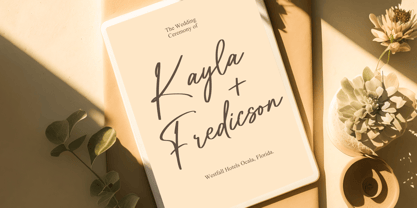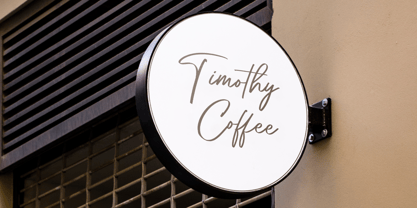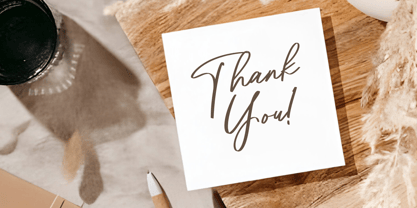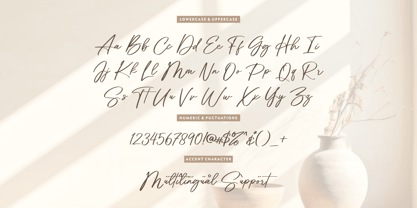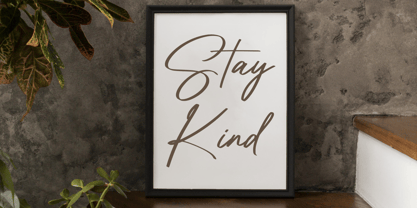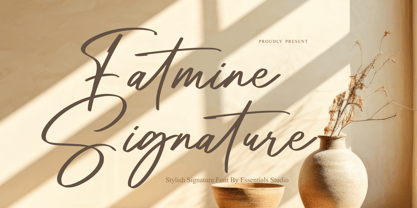
Fatmine Signature
by Essentials Studio
The Fatmine Signature Font Family was designed by Sulthan Mada Maulana Tsani and published by Essentials Studio. Fatmine Signature contains 1 styles. More about this family
Introducing the Fatmine Signature Font, a creation of Essentials Studio. This font, with its elegant signature style, is ideally suited for wedding themes and crafting ventures. Its charming aesthetic and smooth flourishes make it an exquisite addition to your typography library. It’s more than a font; it’s a tribute to the beauty of handwritten expressions brought alive with a touch of sophistication and style. The Fatmine Signature Font enhances every artistic endeavor with its unique design language. Say it with style; say it with Fatmine.
Designers: Sulthan Mada Maulana Tsani
Foundry: Essentials Studio